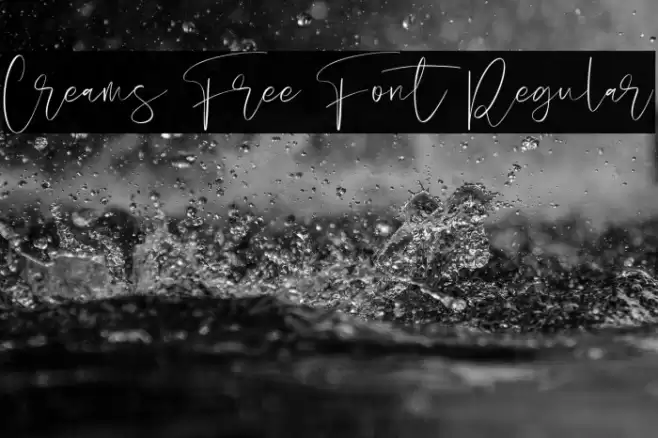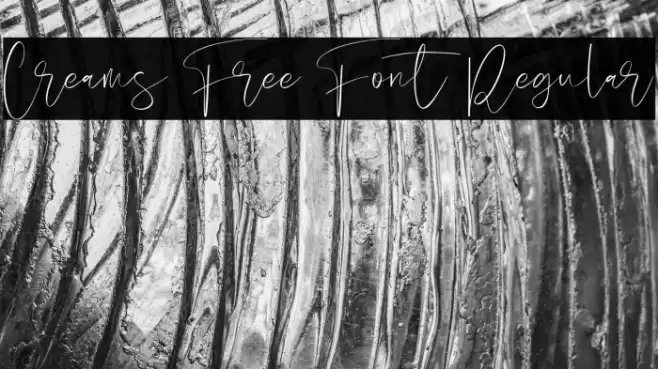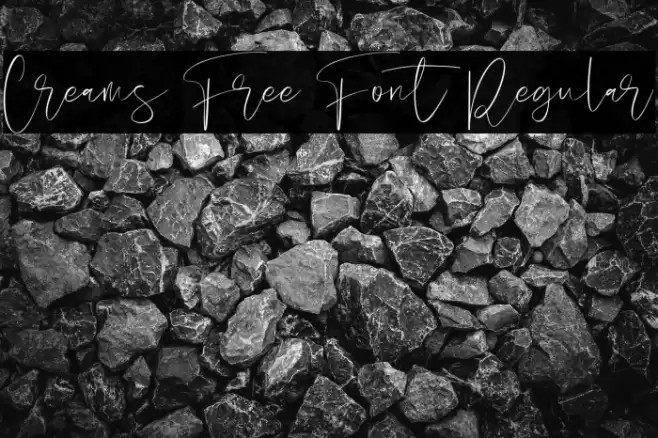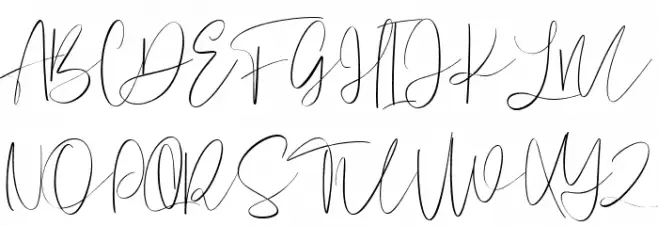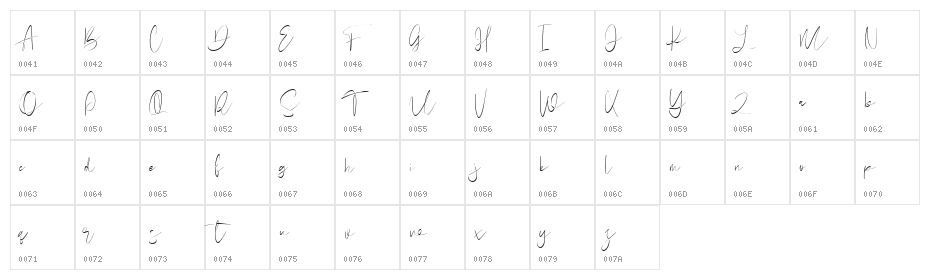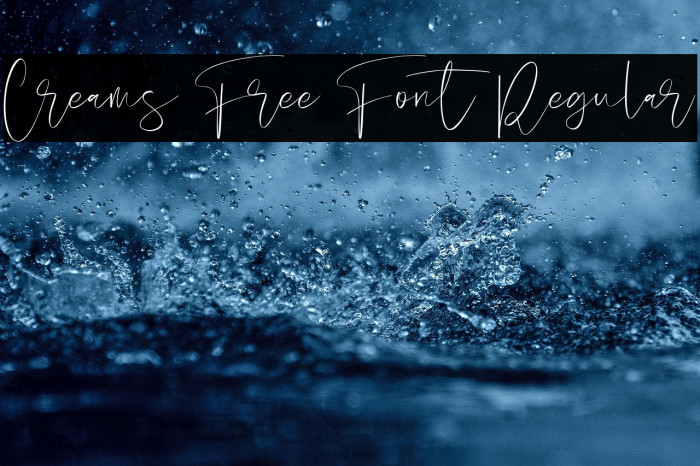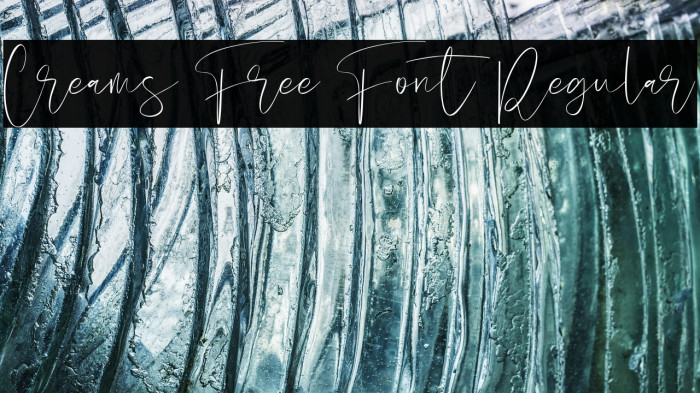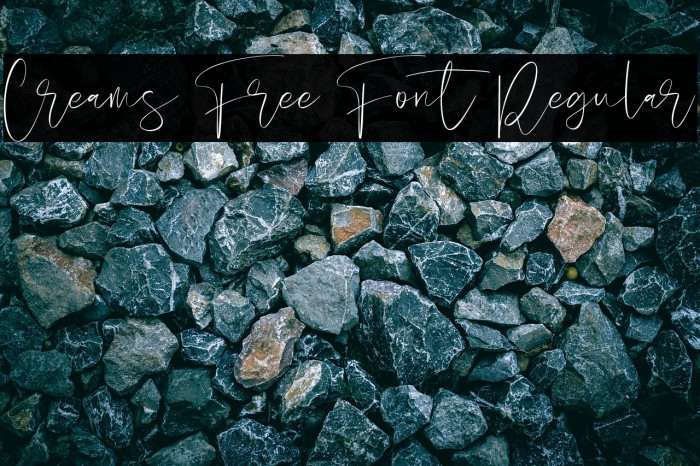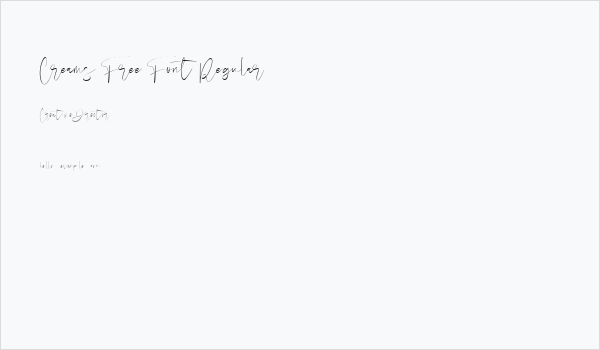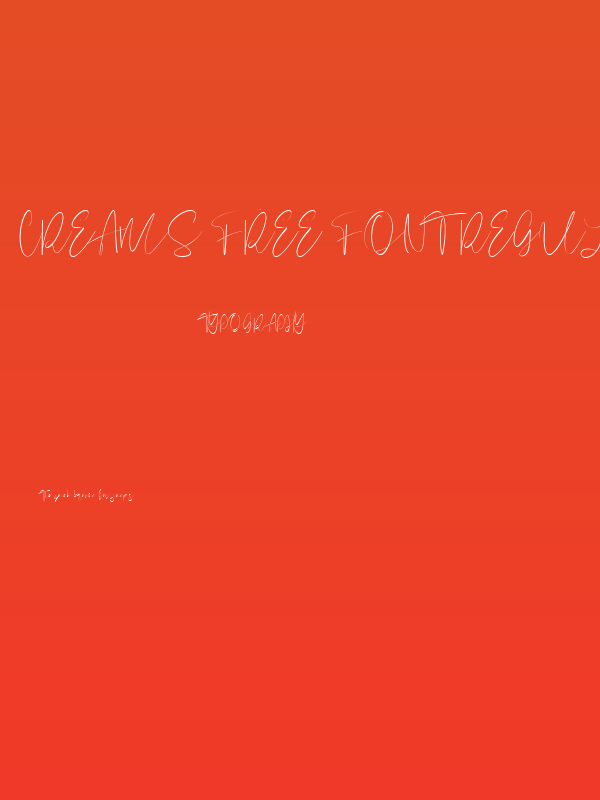
Creams Free Font Regular Font
Creams Free Font Regular Description
This font features a delicate and flowing script style, characterized by its elegant, handwritten appearance. The letters are connected with smooth, sweeping lines, giving it a fluid and graceful look. The strokes vary in thickness, adding a dynamic and lively feel to the text. The uppercase letters are bold and prominent, while the lowercase letters maintain a consistent, flowing style. This font exudes a sense of sophistication and charm, making it ideal for creative and artistic projects.
A delicate, flowing script font with elegant, handwritten style from Regular fonts.
- Proposed Projects: Ideal for wedding invitations, greeting cards, branding, and logo design.
- Overall Style: Elegant
- Use Case: Logos, Invitations, Artistic projects